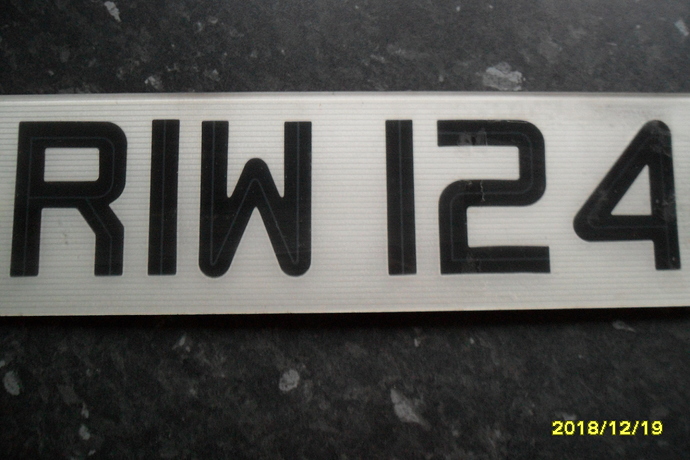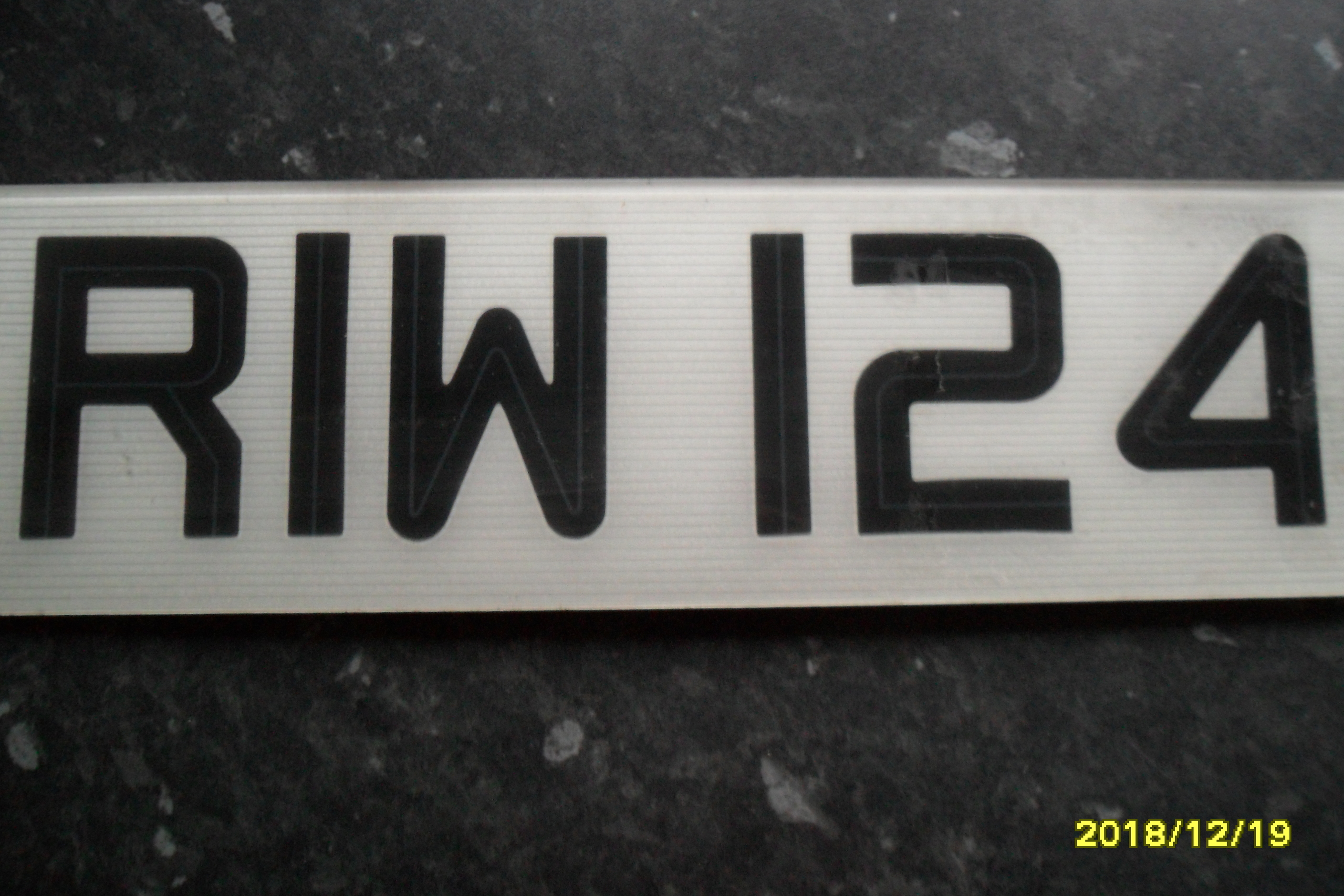
Help needed to identify this font please .
HI,yes i did post it earlier but thought this maybe a better photo. Its my car registration plate thats gone a bit tatty, the shop i had it made up at has closed ,the nearest i can find it Route 66NF but was hoping to find the exact match if possible, do you think it maybe a “one off” font ?
The font on your plate is not the same as the official font specified by UK regulations, which is called “Mandatory.” Here are four links: